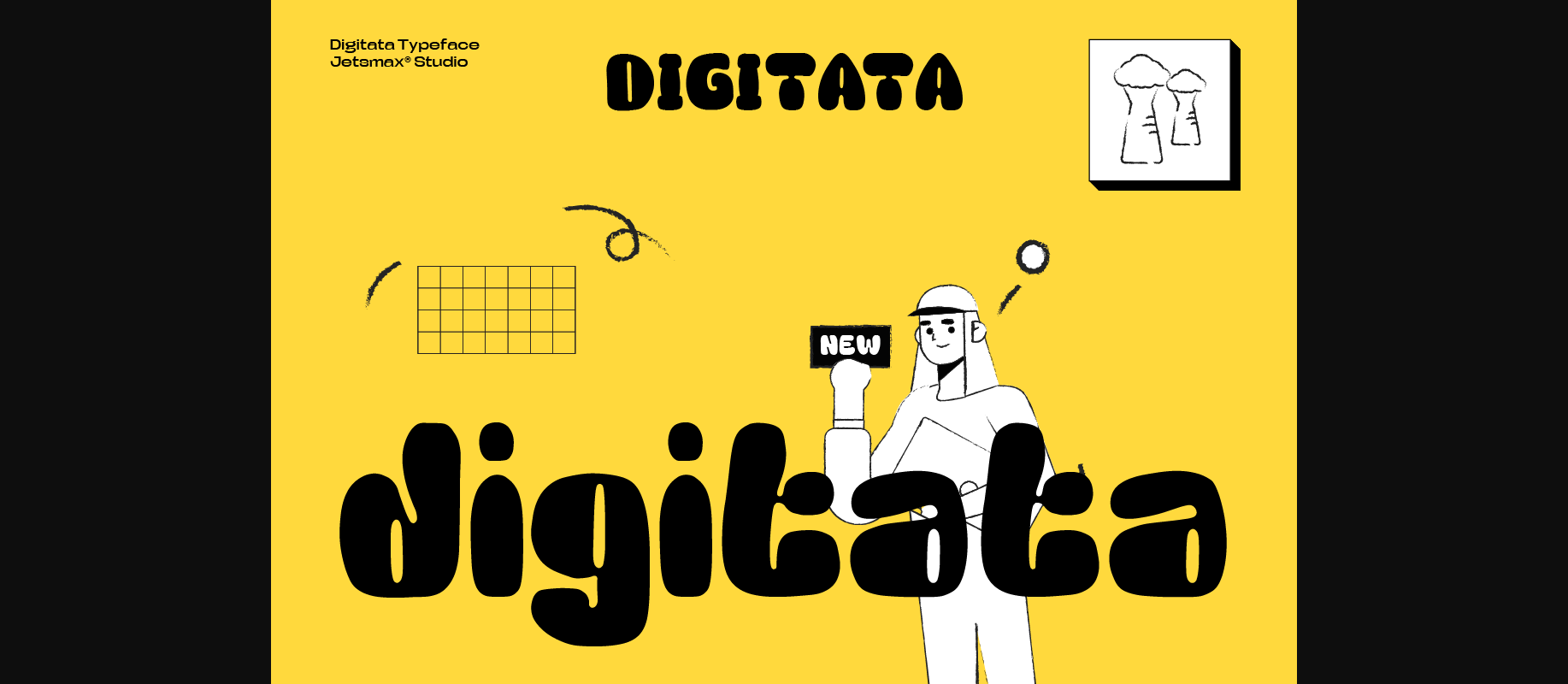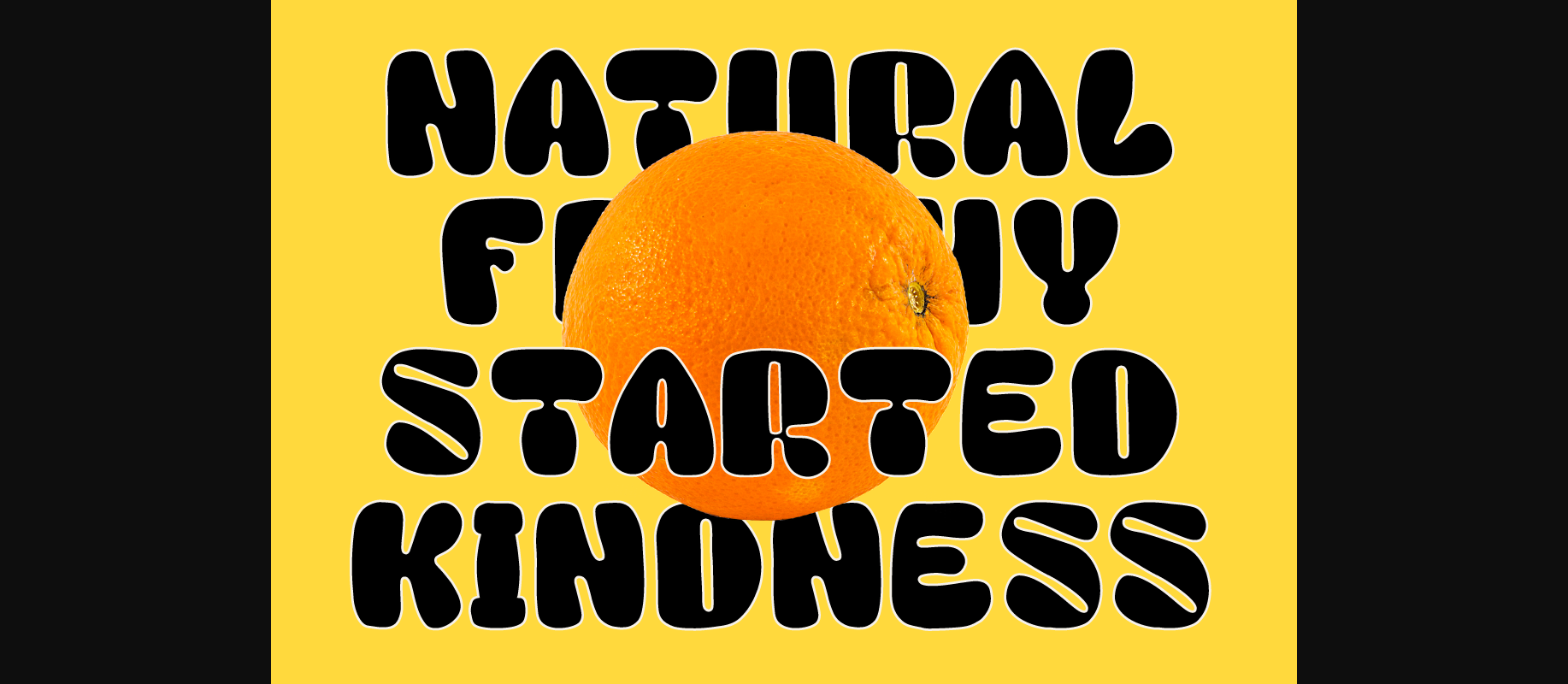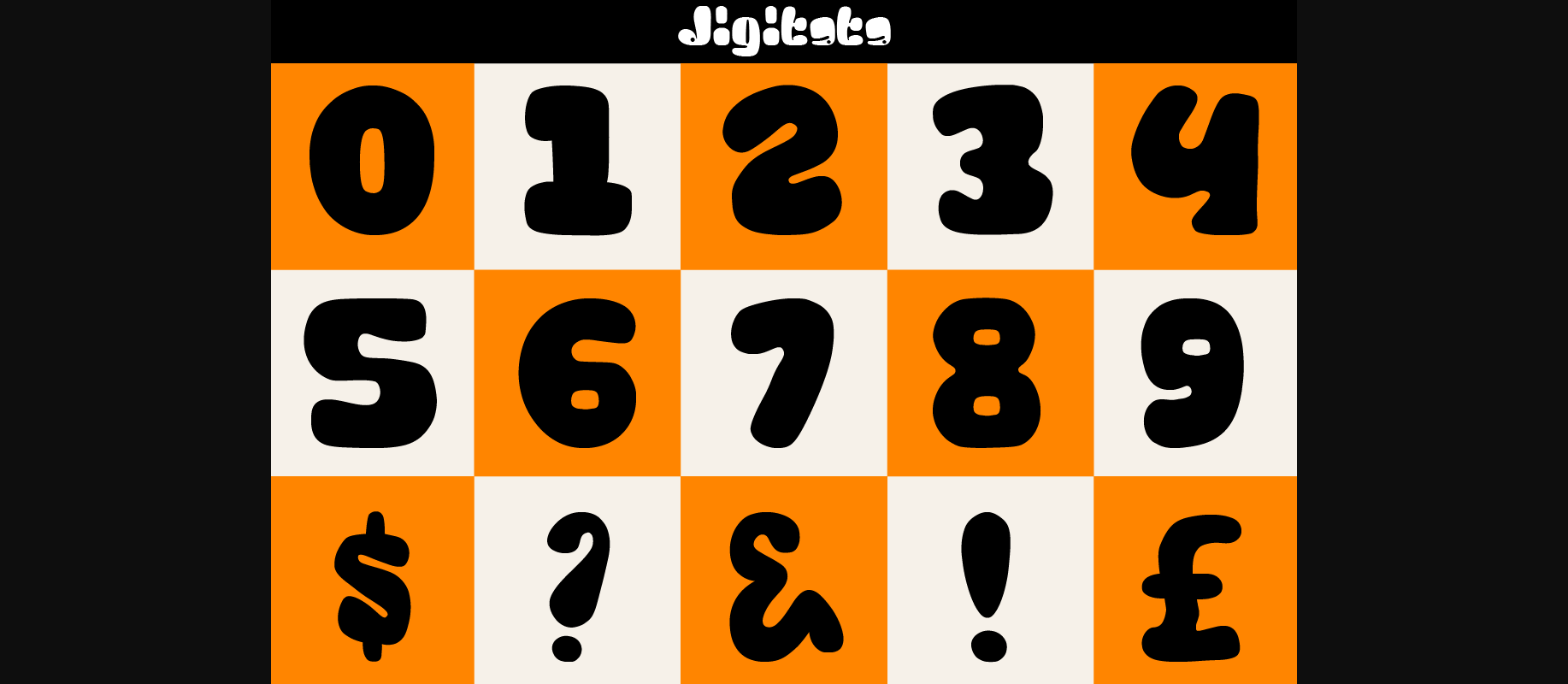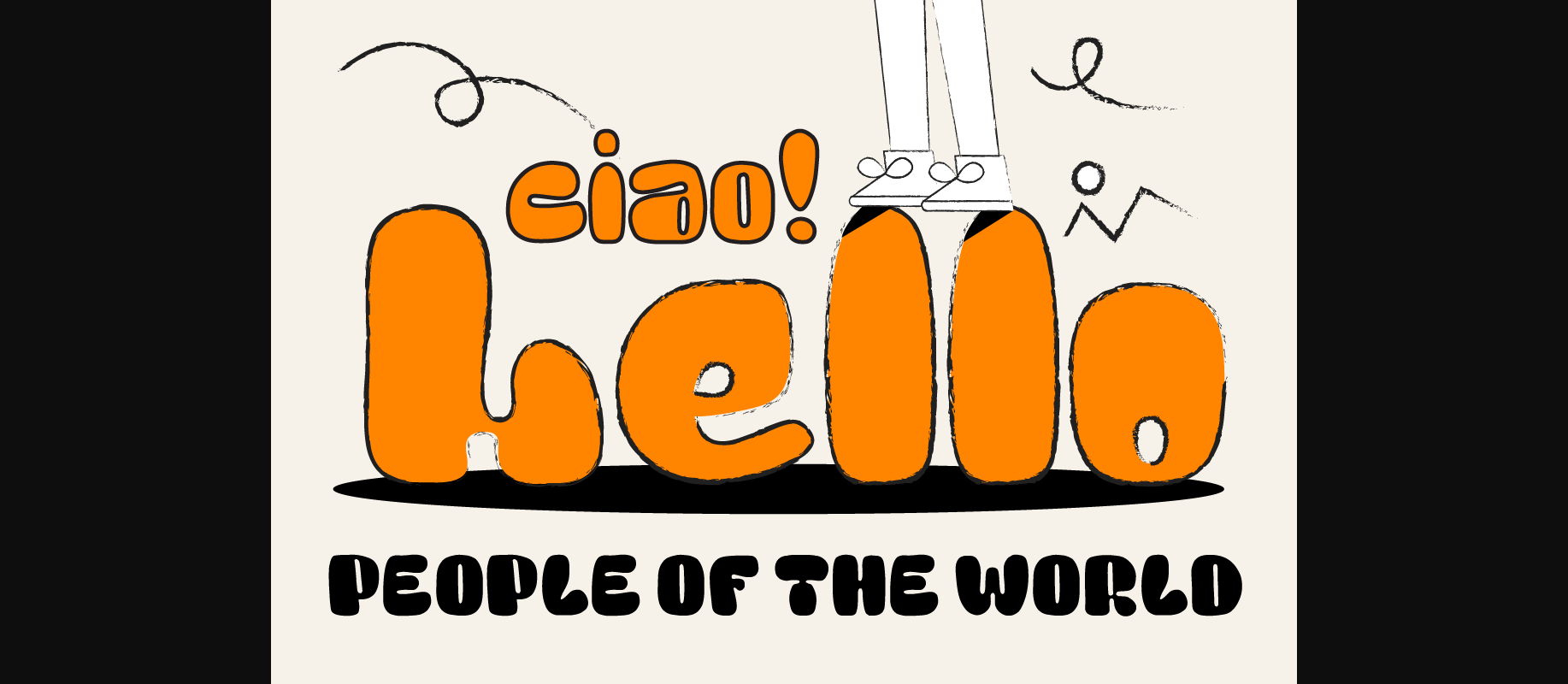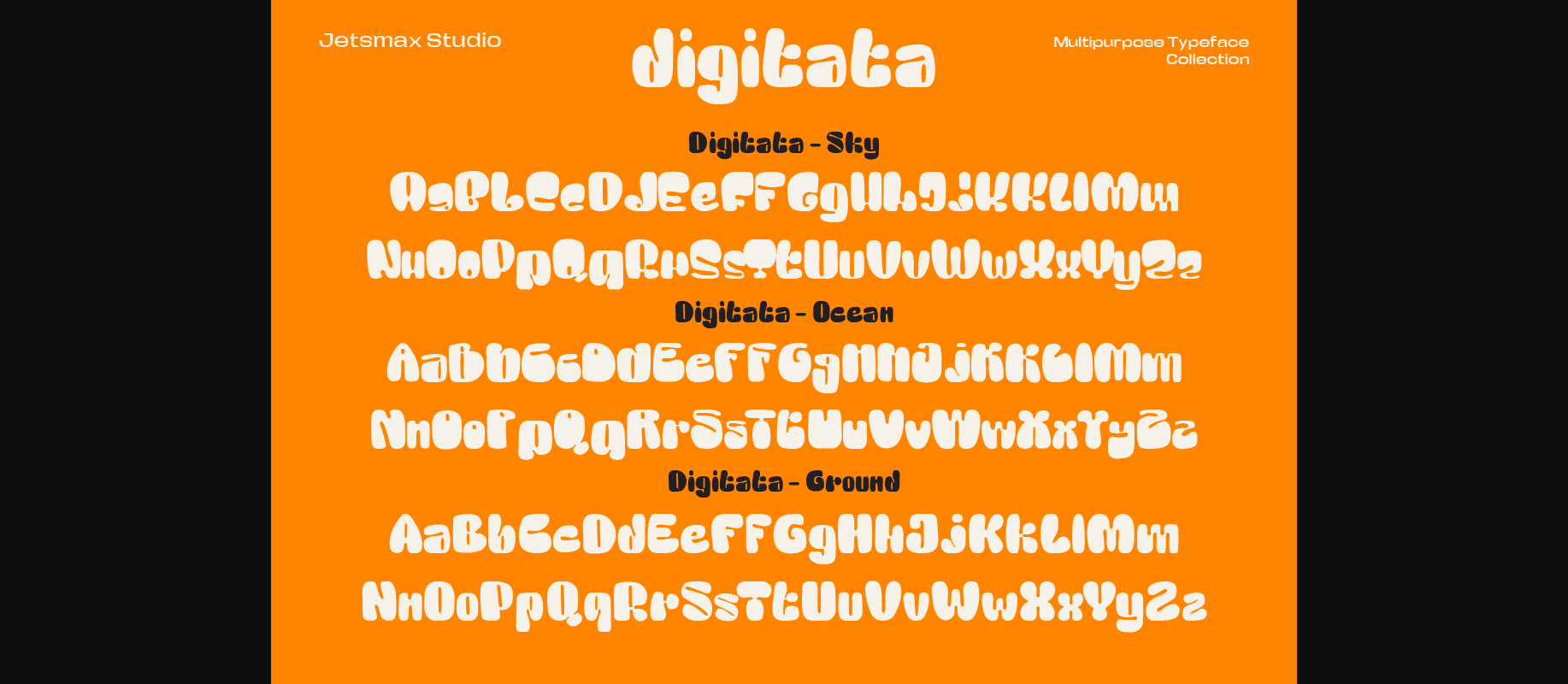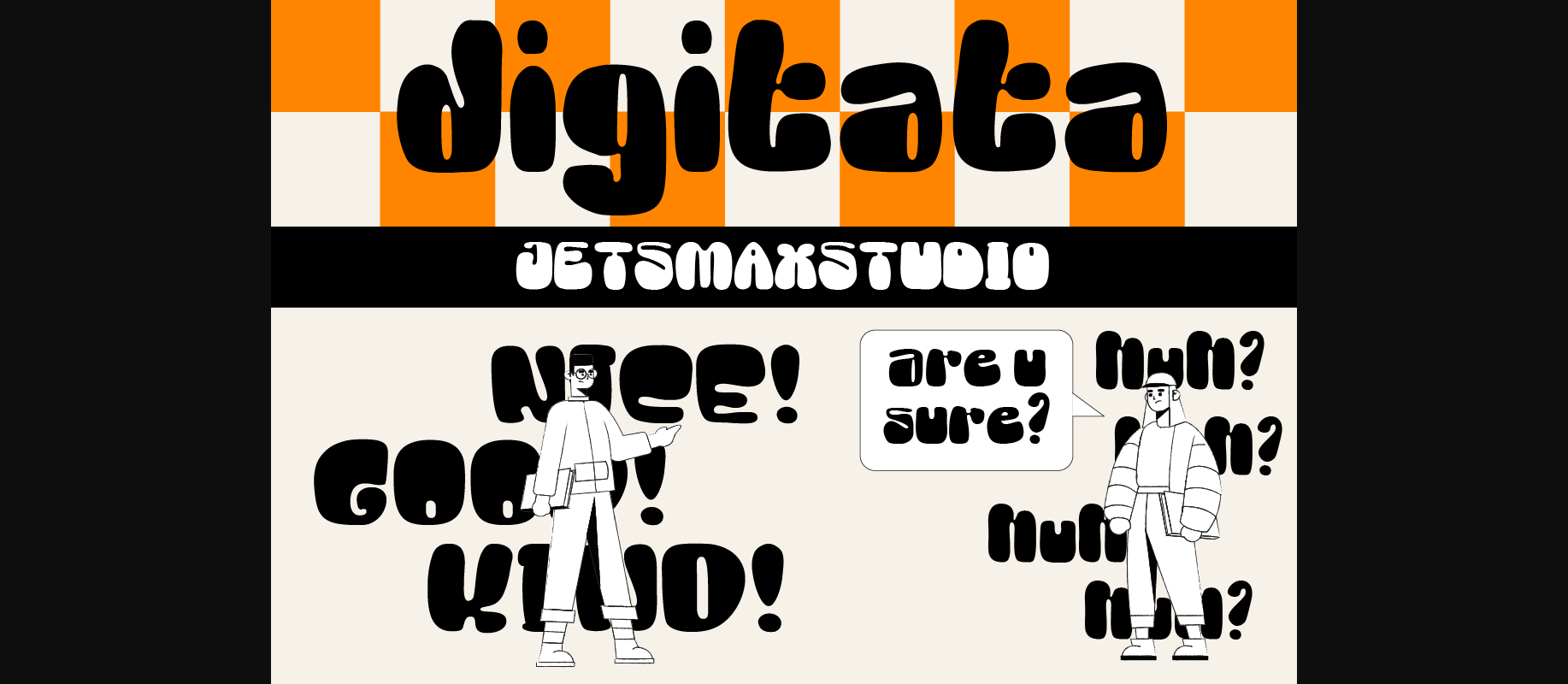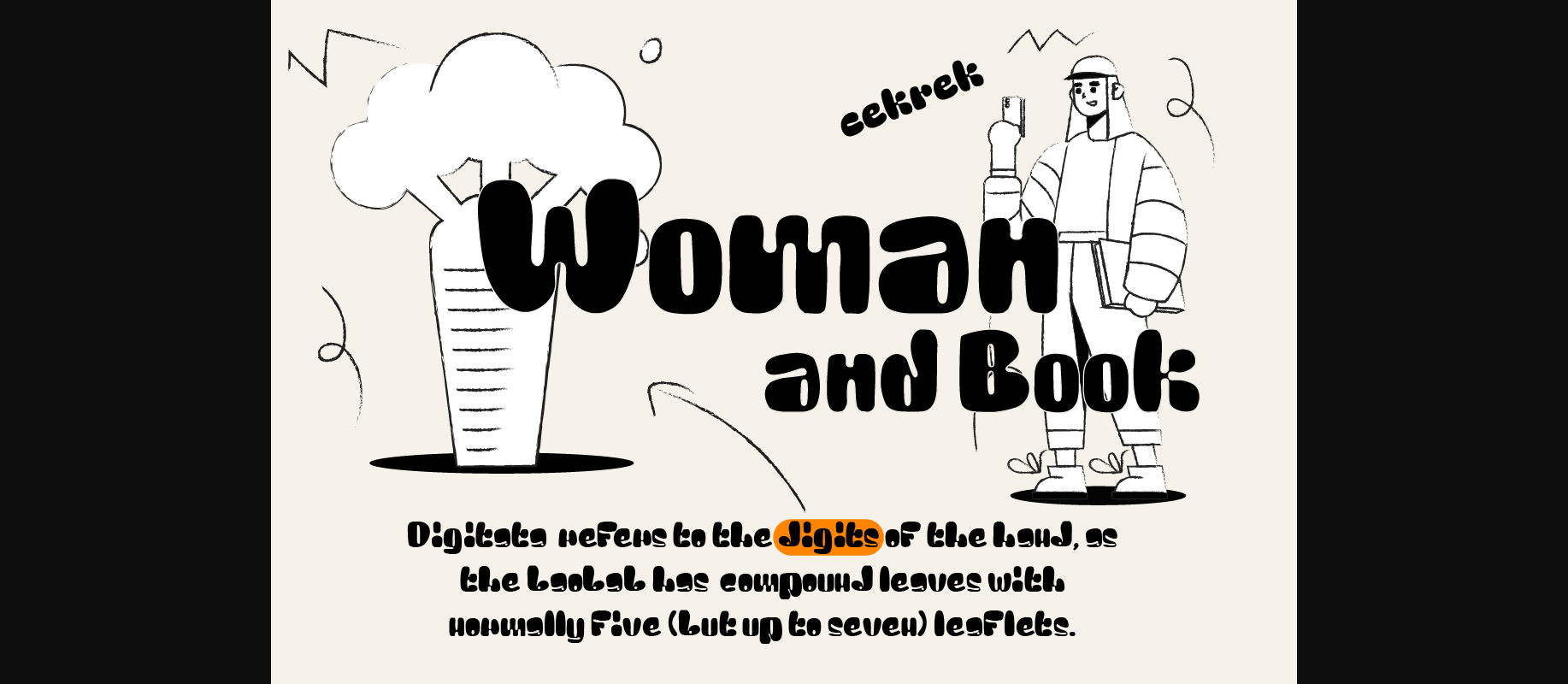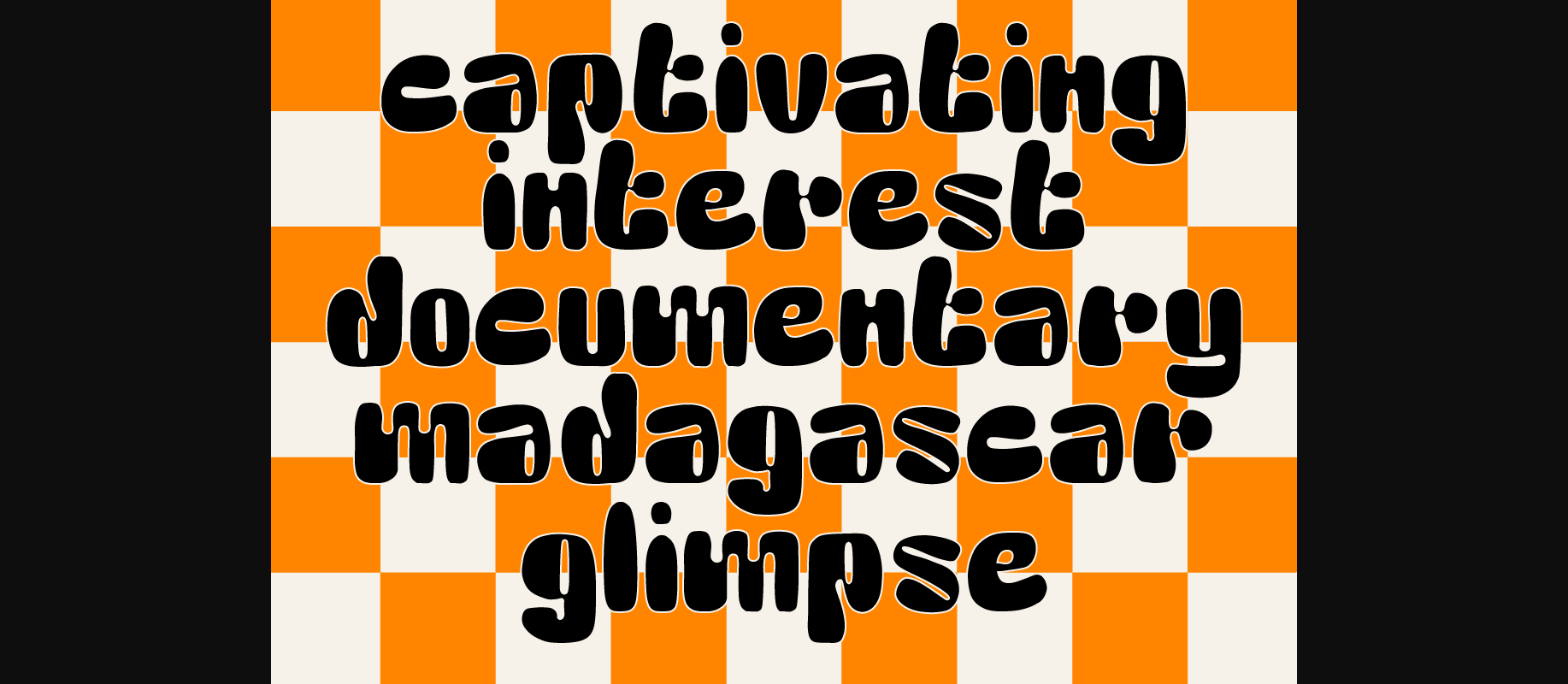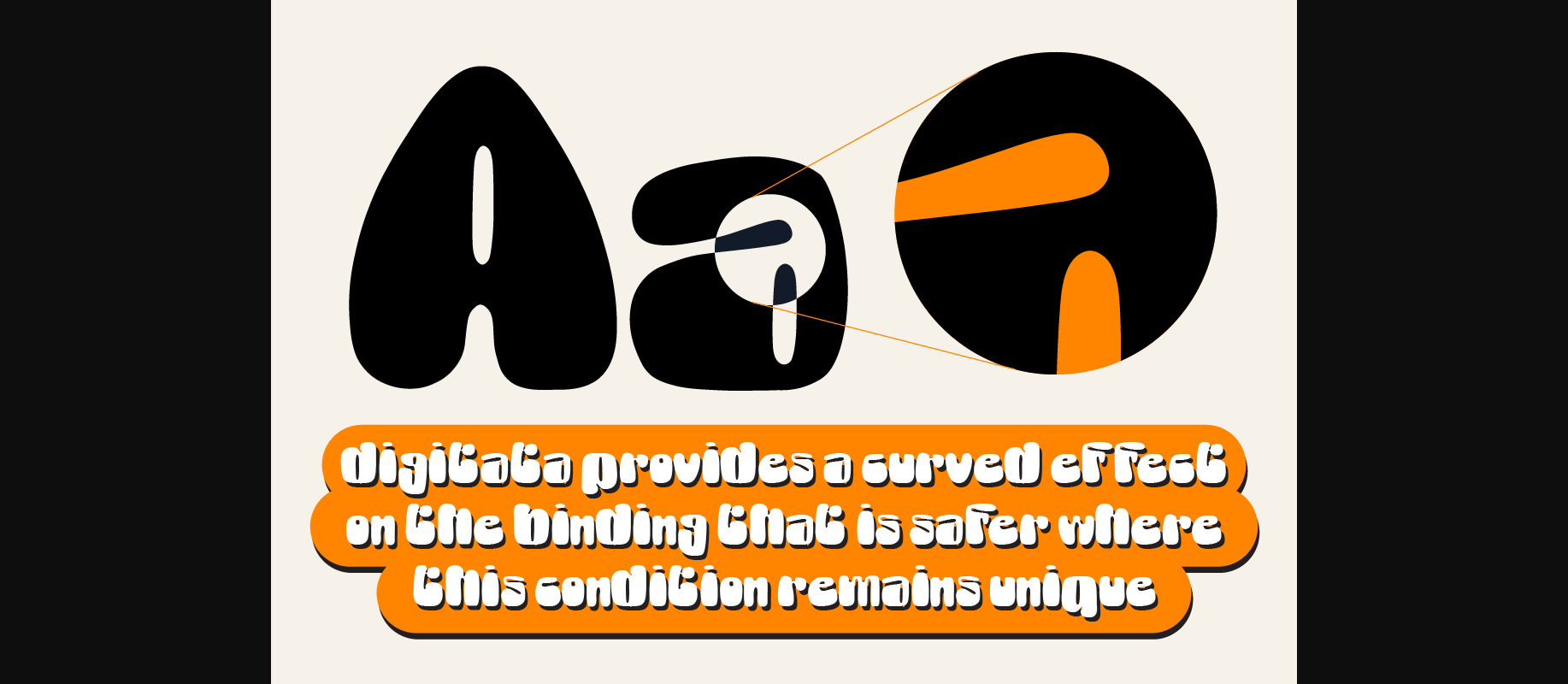
Digitata Font
About Digitata Font
Digitata is a stunning display font that exudes elegance and modernity. Digitata Ground Regular, Digitata Sky Regular, and Digitata Ocean Regular. With its soft curves and sleek lines, this typeface is perfect for adding a touch of sophistication to any design project. Whether you’re creating branding materials, advertisements, or editorial layouts, Digitata will elevate your designs to the next level.